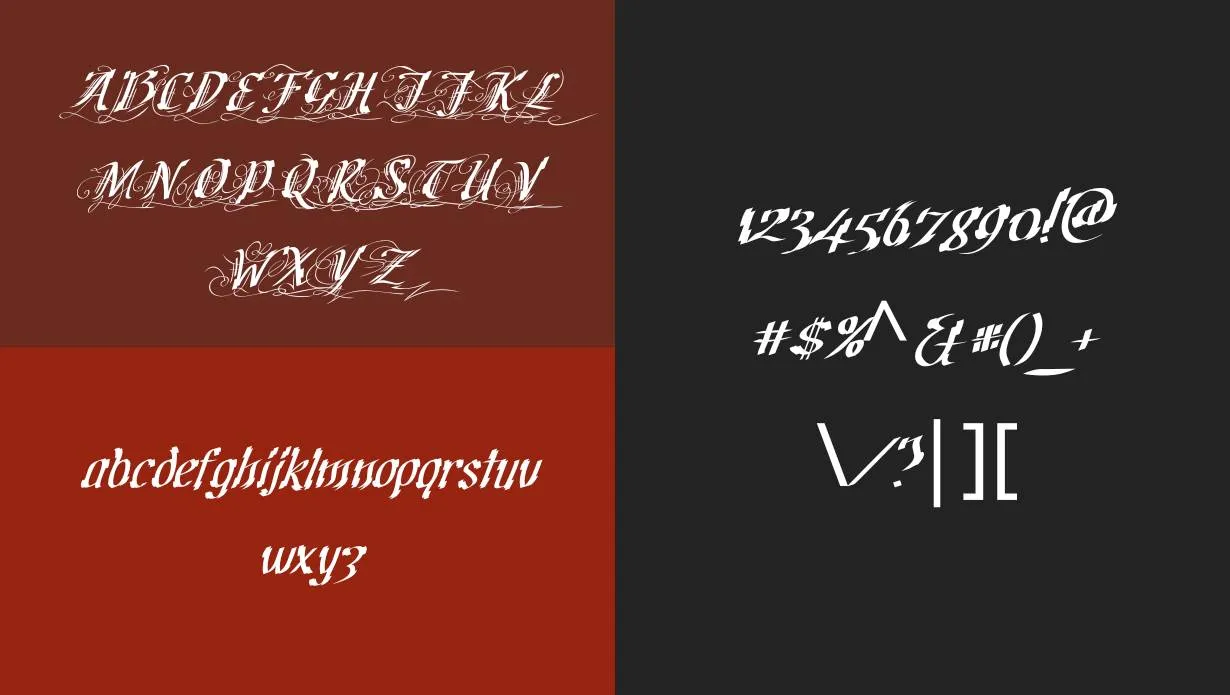
Cretino Font provides a daring and original design, commonly utilized in innovative branding, advertising, and projects where designers aim to establish a distinct and lasting visual impression.
The font’s bold and irregular letterforms add a sense of originality and individuality to your designs.
| Name | Cretino Font |
| Designer | Typodermic Fonts |
| Style | Gothic |
Cretino Font Family